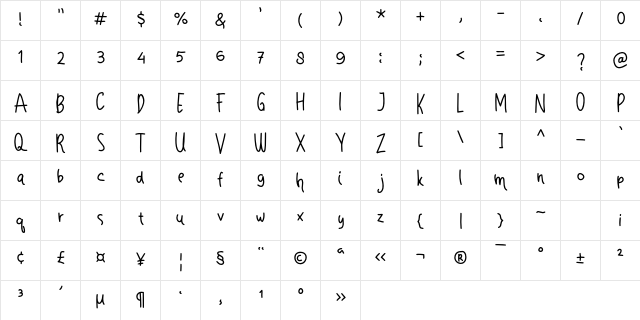
Doctor Vista Regular
Design Context for Doctor Vista Typeface
Doctor Vista is a composed and adaptable typeface that performs quietly and consistently across a wide range of design contexts.